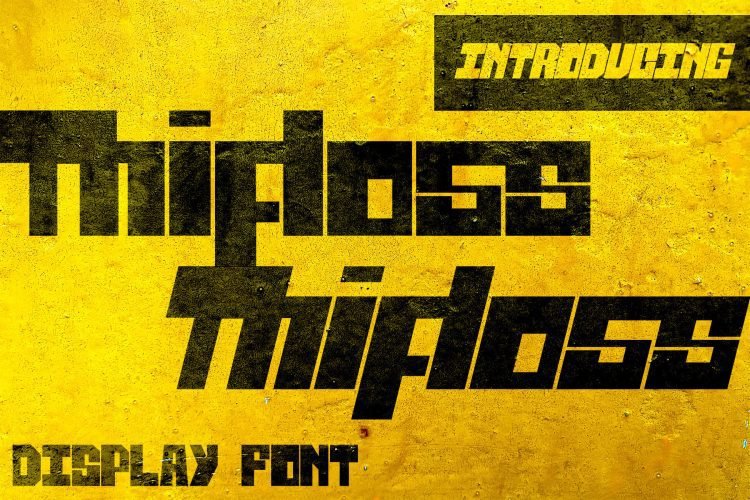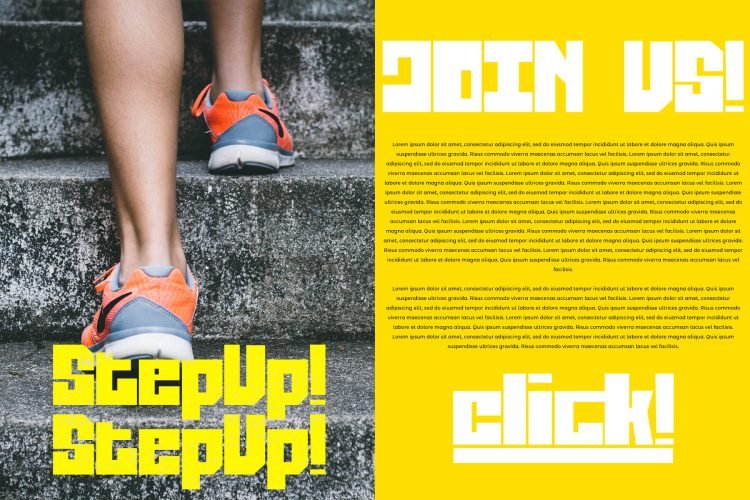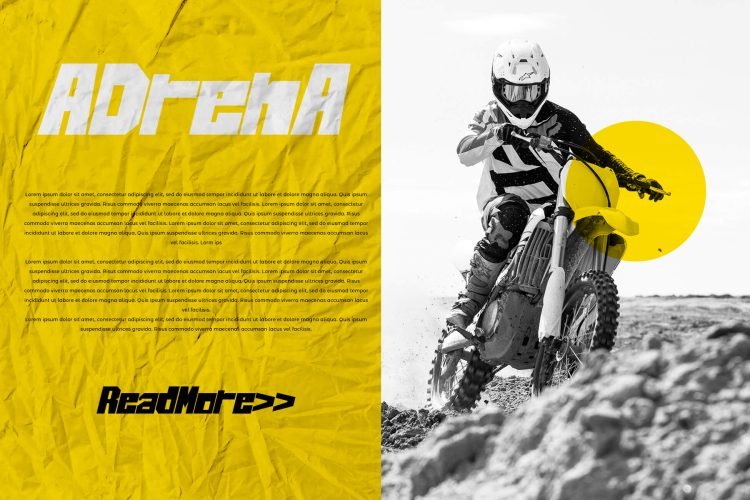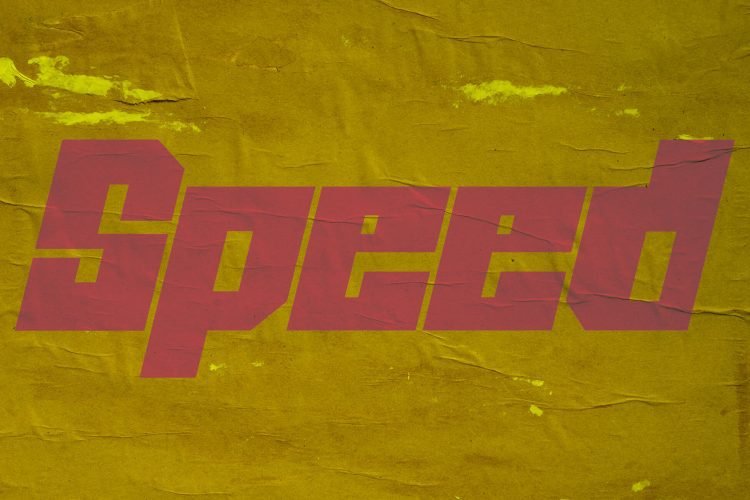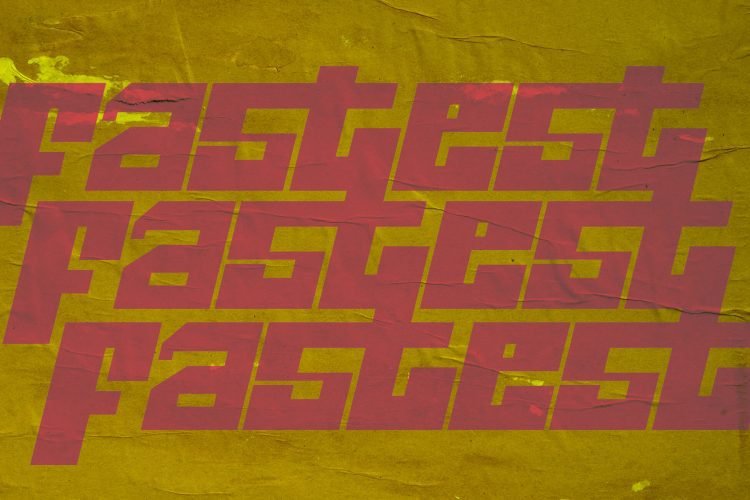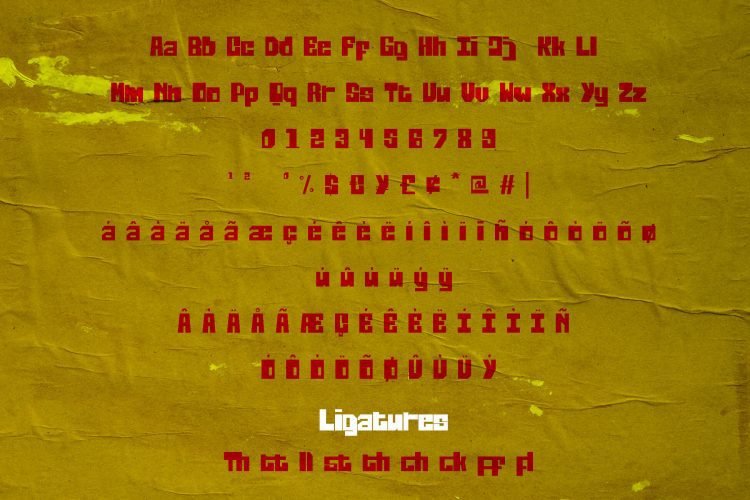
Thifloss is a display font with a block-bold style. suitable for posters, logotypes, apparel, branding, and so on. contains standard English letters, numbers, punctuation, Ligatures and several accents that support multilingualism.